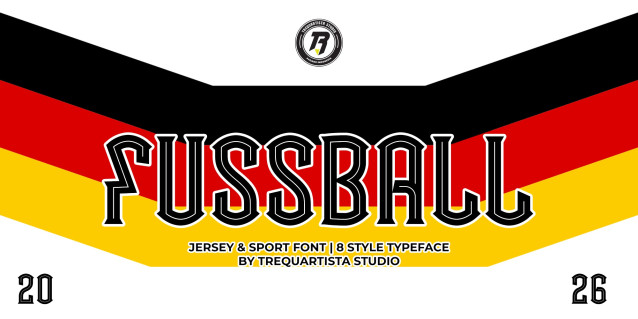
Fussball Font
Fussball Font is a simple and modern display font suitable for quotes, logos, headings, titles, and many more. Use it on any of your creative projects, and your designs will become outstanding!